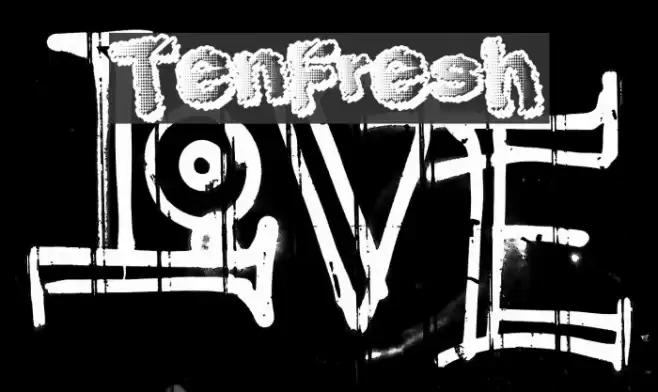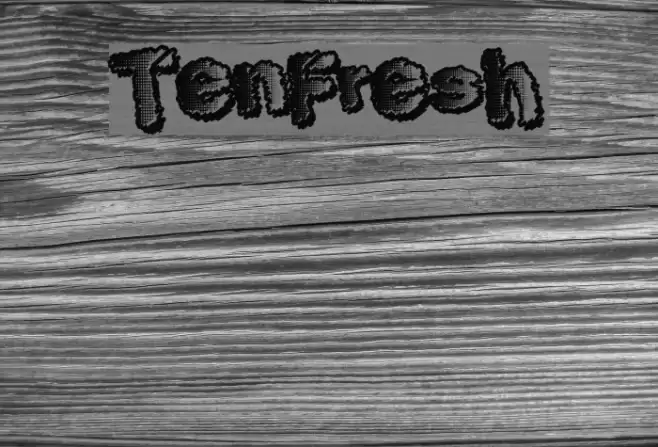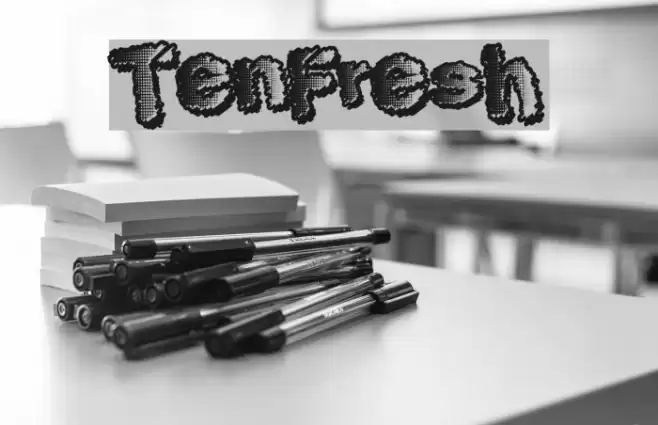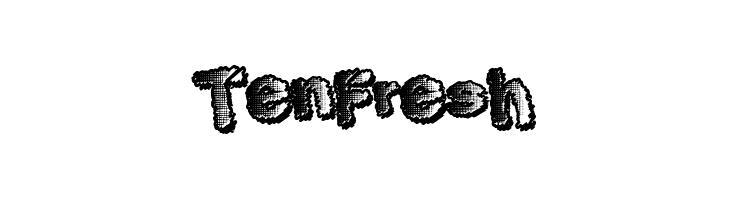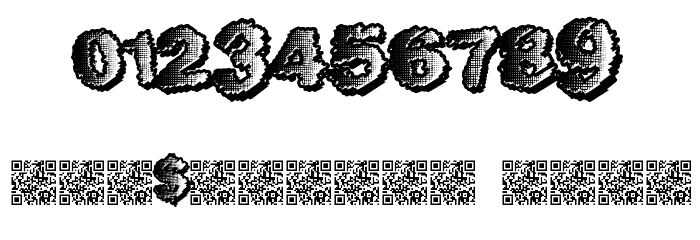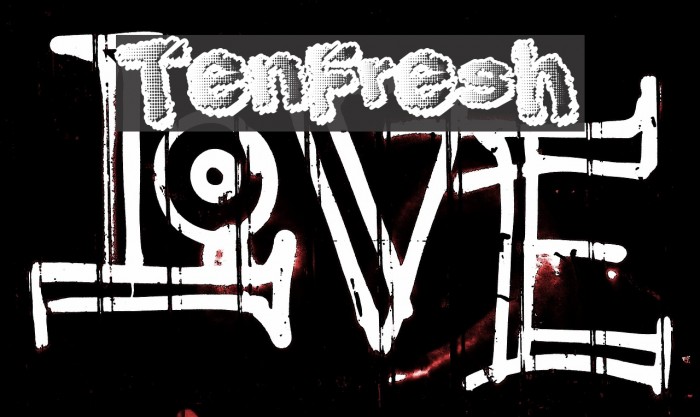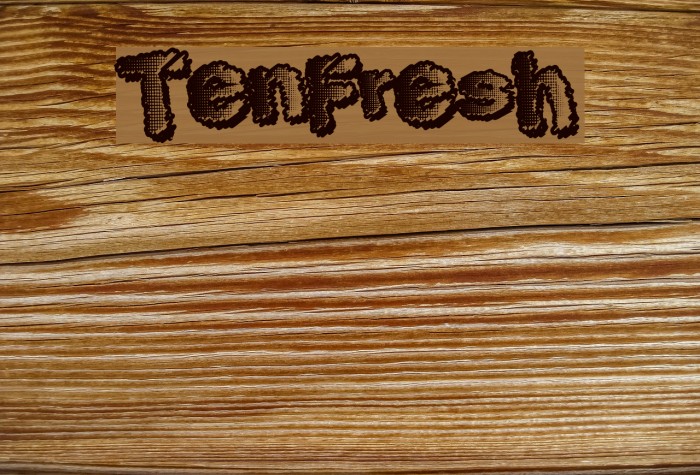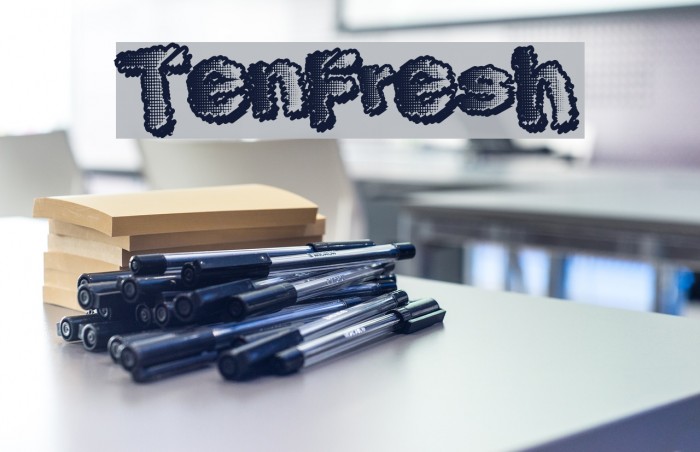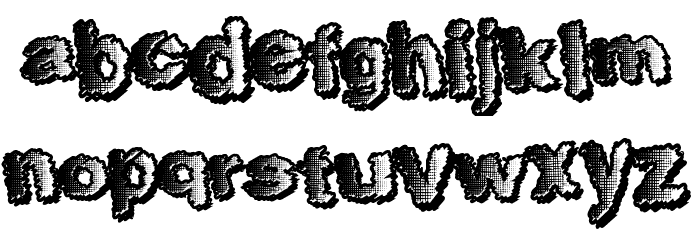
TenFresh Font
TenFresh Description
This font features a bold, playful style with a textured, hand-drawn appearance. The characters are outlined with a thick, uneven stroke that gives them a dynamic and energetic feel. The letters are slightly irregular, adding to the whimsical and informal nature of the design. The font's unique texture resembles a sketch or doodle, making it stand out with its artistic flair. It maintains legibility despite its decorative elements, making it suitable for eye-catching headlines or creative projects. The numbers and special characters follow the same stylistic approach, ensuring consistency across all elements.
A bold, textured, hand-drawn font with a playful and artistic style from Distorted Eroded fonts.
- Proposed Projects: Ideal for children's books, comic strips, playful branding, posters, and creative social media graphics.
- Overall Style: Playful, Artistic, Whimsical